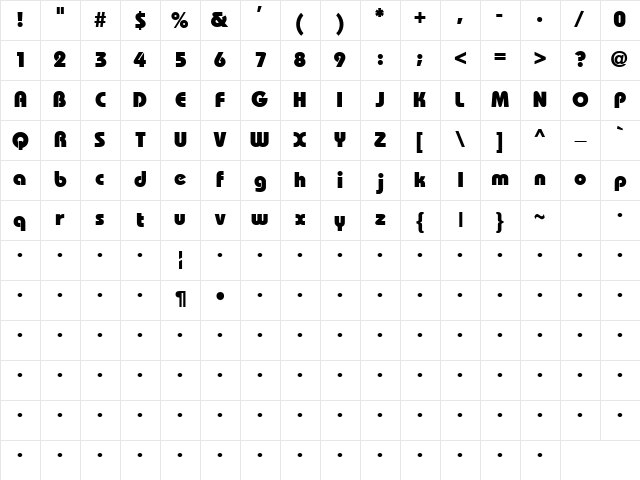
QTDoghausHeavy Regular
Design Context for QTDoghausHeavy
QTDoghausHeavy is a composed and adaptable typeface that performs quietly and consistently across a wide range of design contexts.
Pro Tip: Use QTDoghausHeavy in both headline and body roles to test its range before committing to a single application.